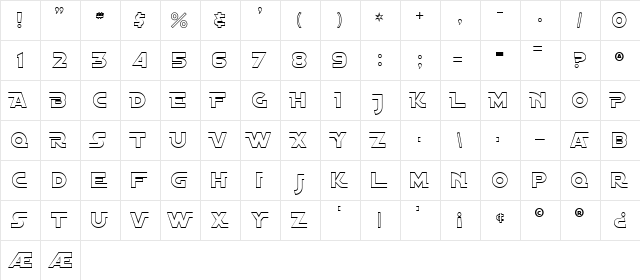
Distant Galaxy AltOutline Regular
Design Context for Distant Galaxy AltOutline Typeface
Distant Galaxy AltOutline brings ornamental detail and strong personality to headlines and identities, where visual impact matters more than quiet functionality.
Font Pairing: Pair with a clean neutral sans-serif for body copy to let Distant Galaxy AltOutline's character lead without overwhelming the composition.
Pro Tip: Use Distant Galaxy AltOutline exclusively at display sizes — it was designed to be seen, not read at length. Let a neutral companion handle body copy.